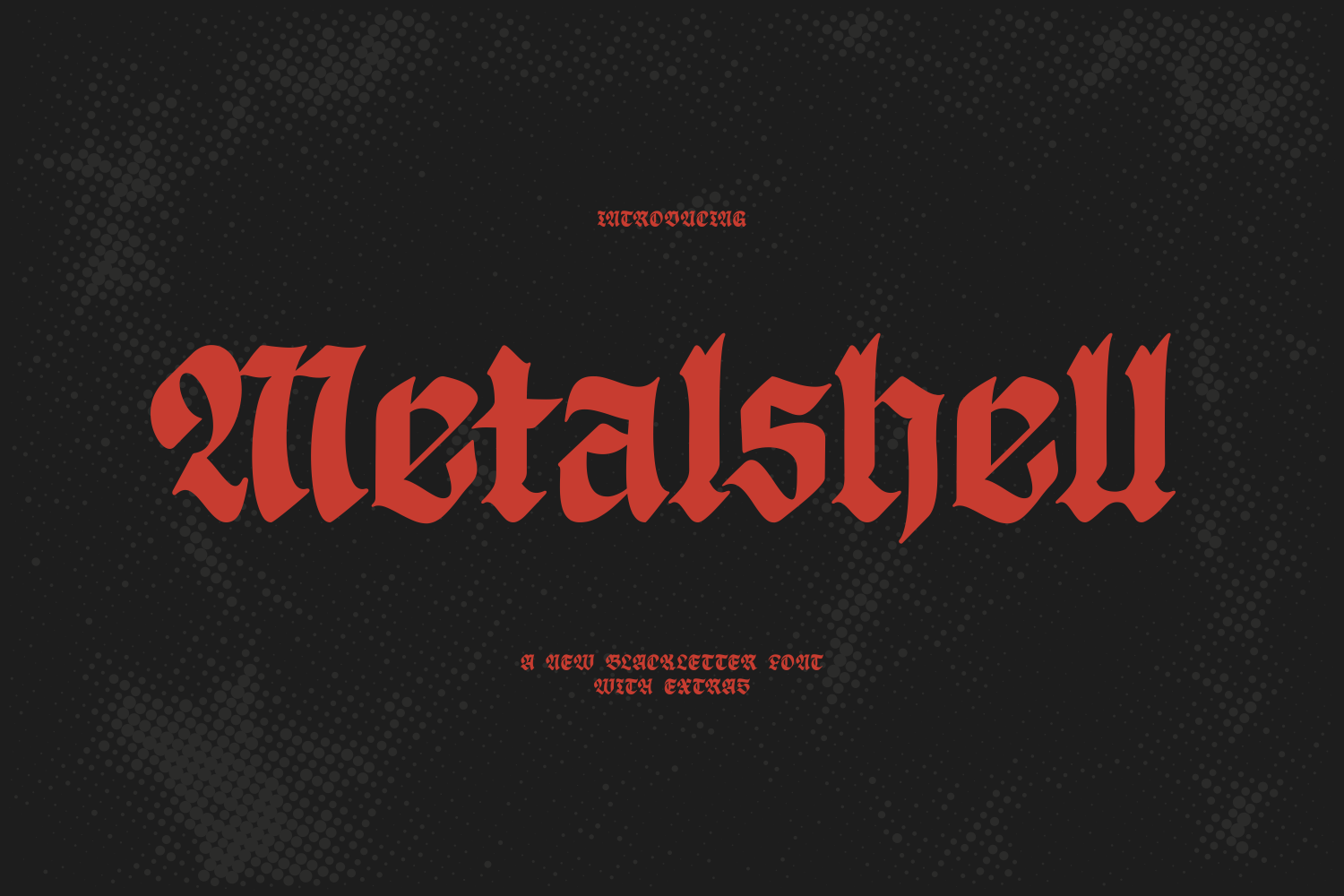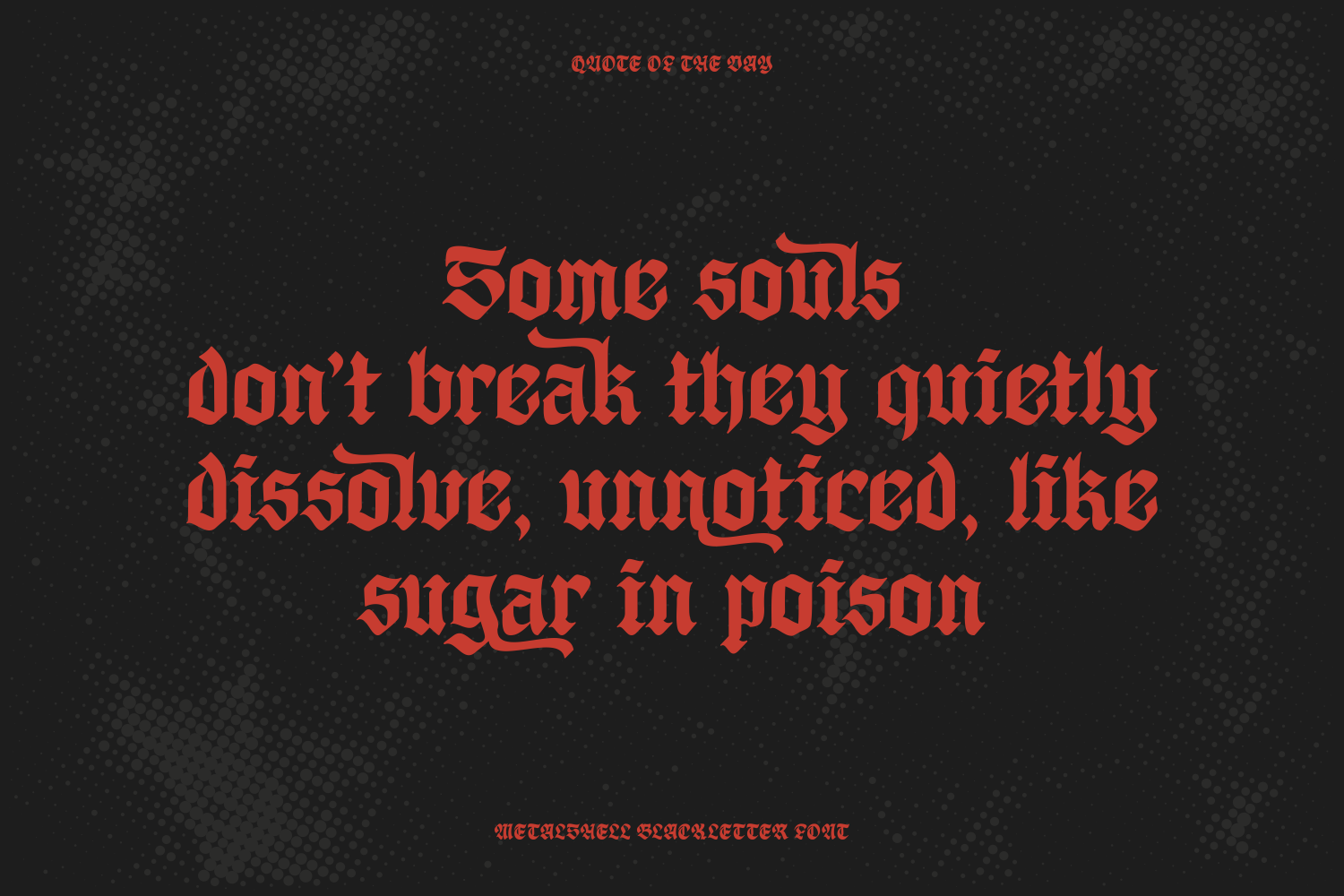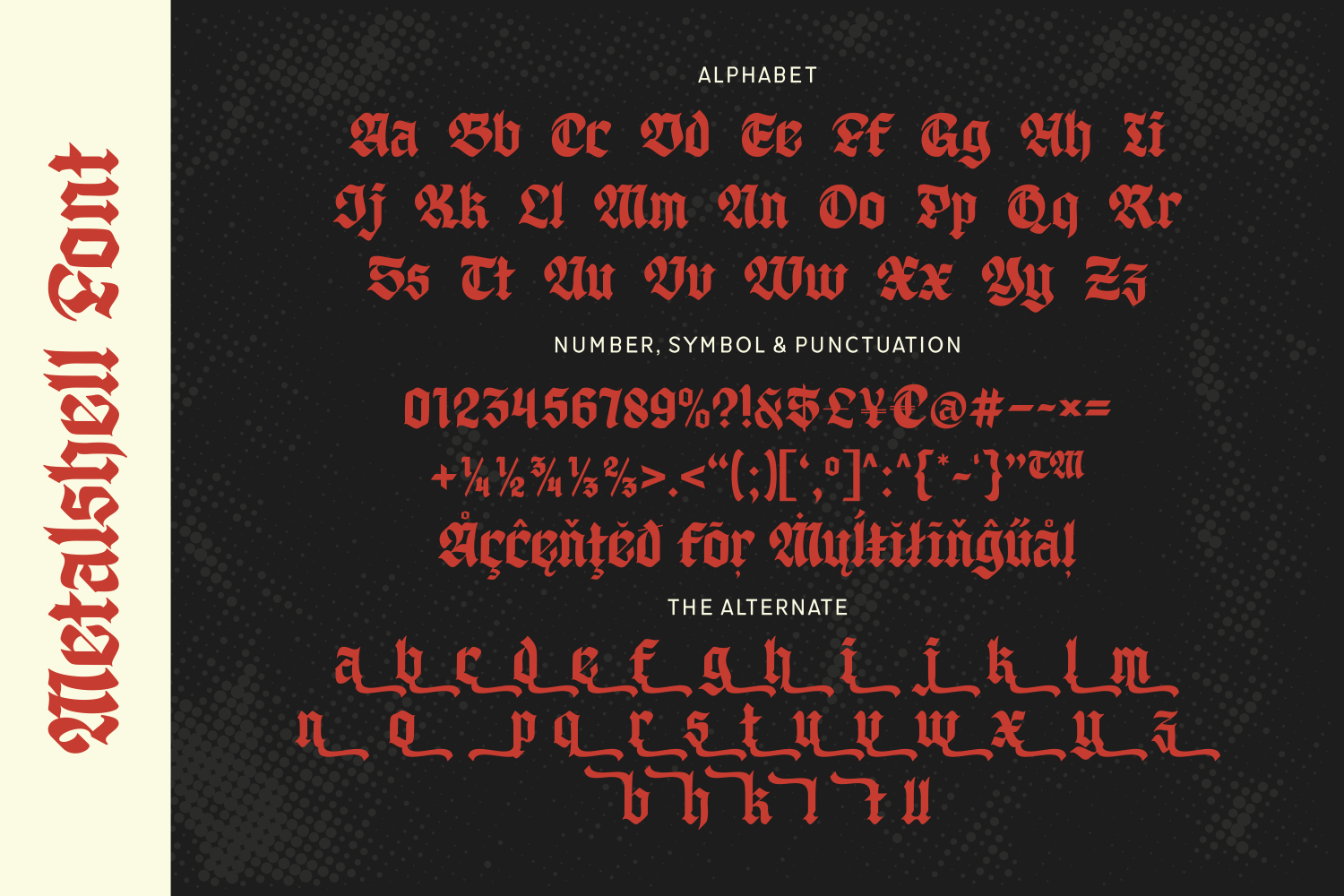
Metalshell is a fierce and uncompromising blackletter font built for the world of heavy metal, punk, and underground culture. Its jagged strokes and aggressive form command attention—perfect for band logos, merch, posters, or anything that demands raw power and a rebellious edge.